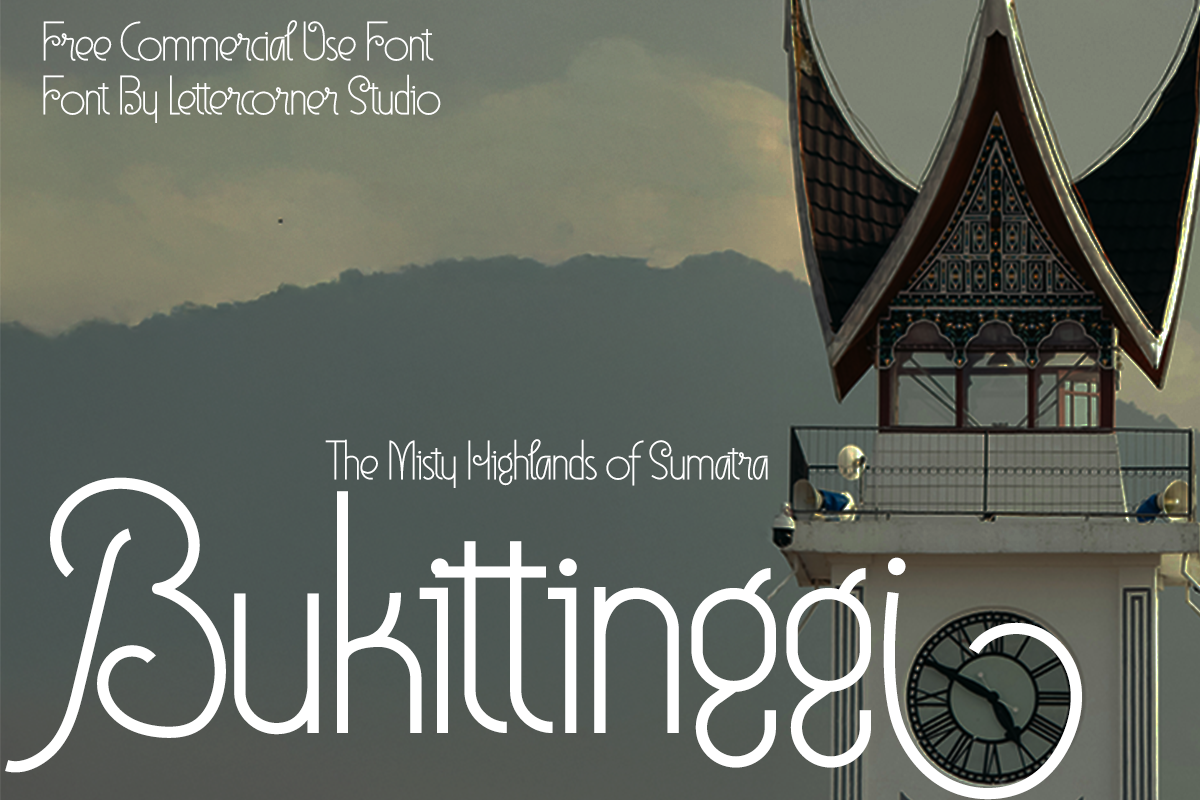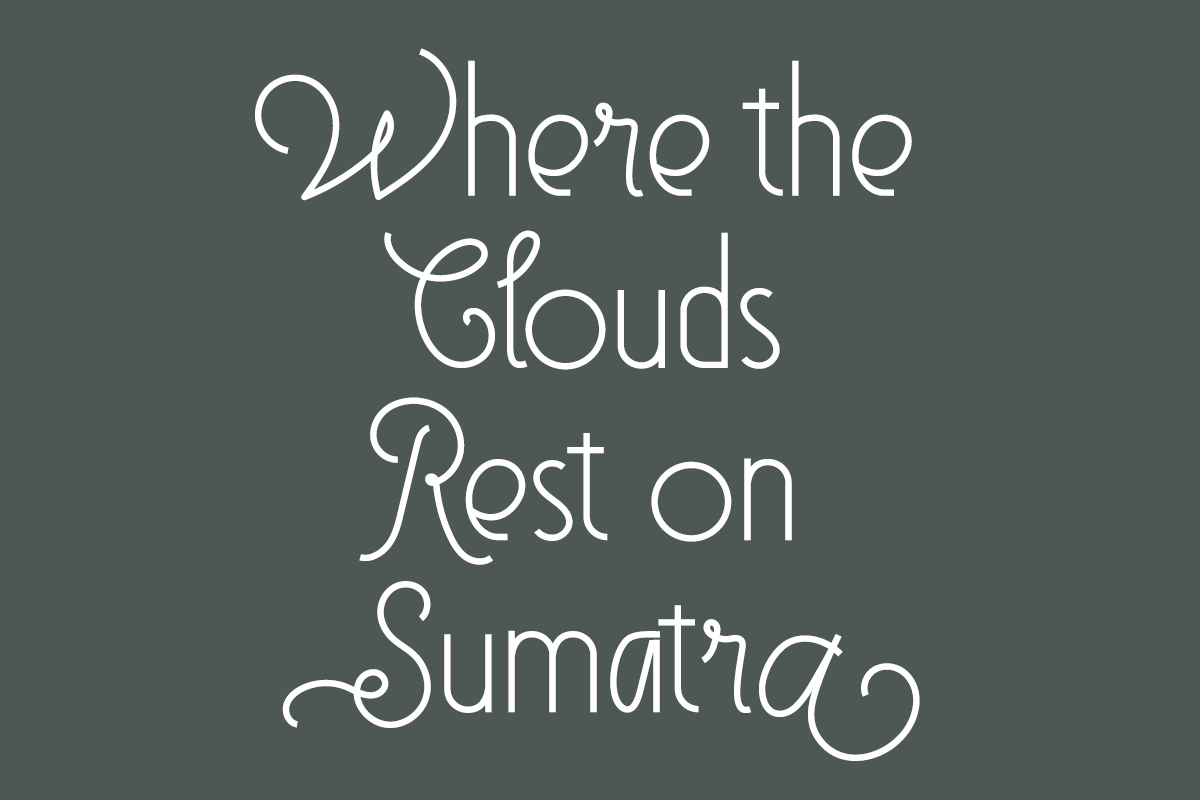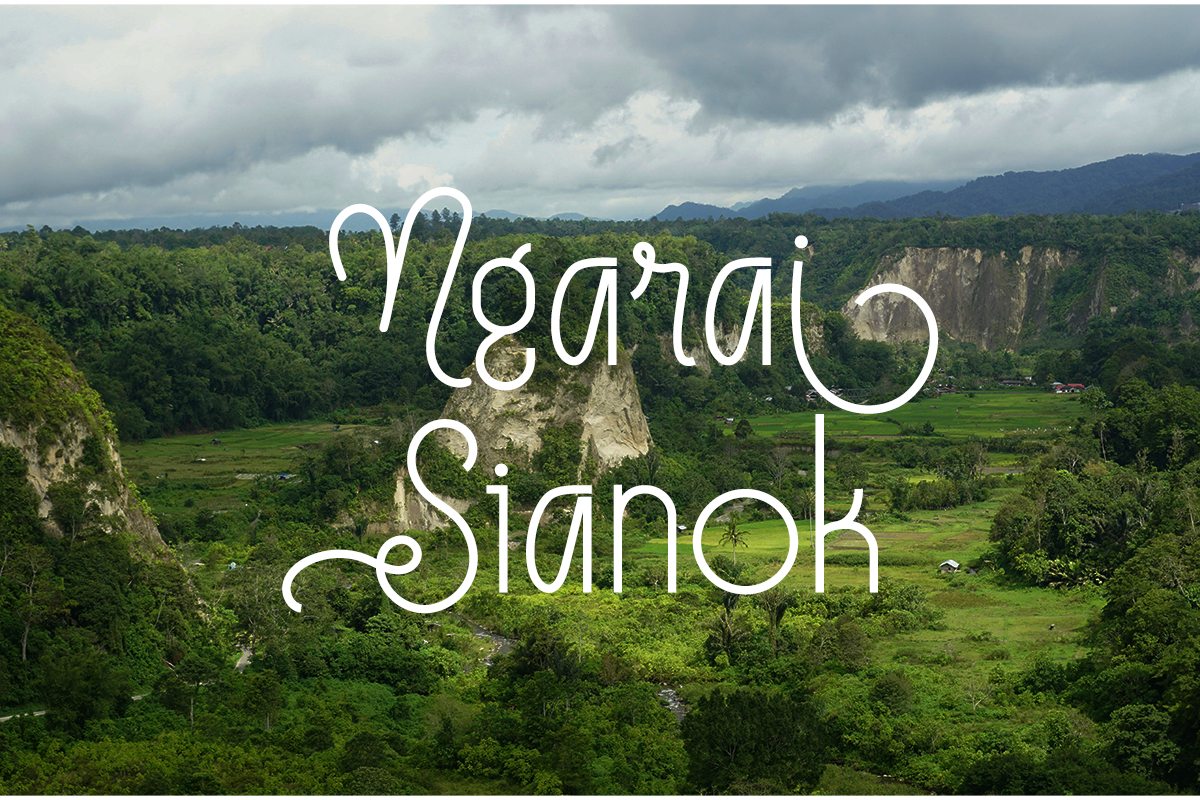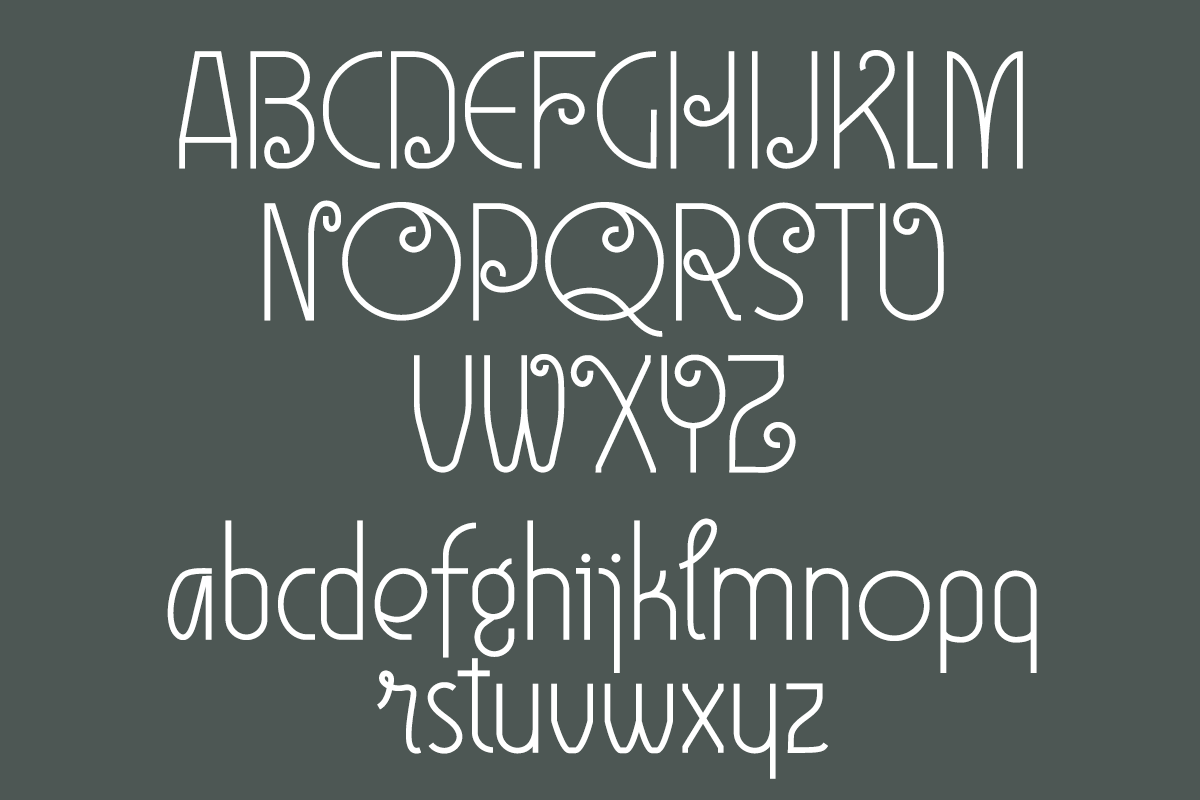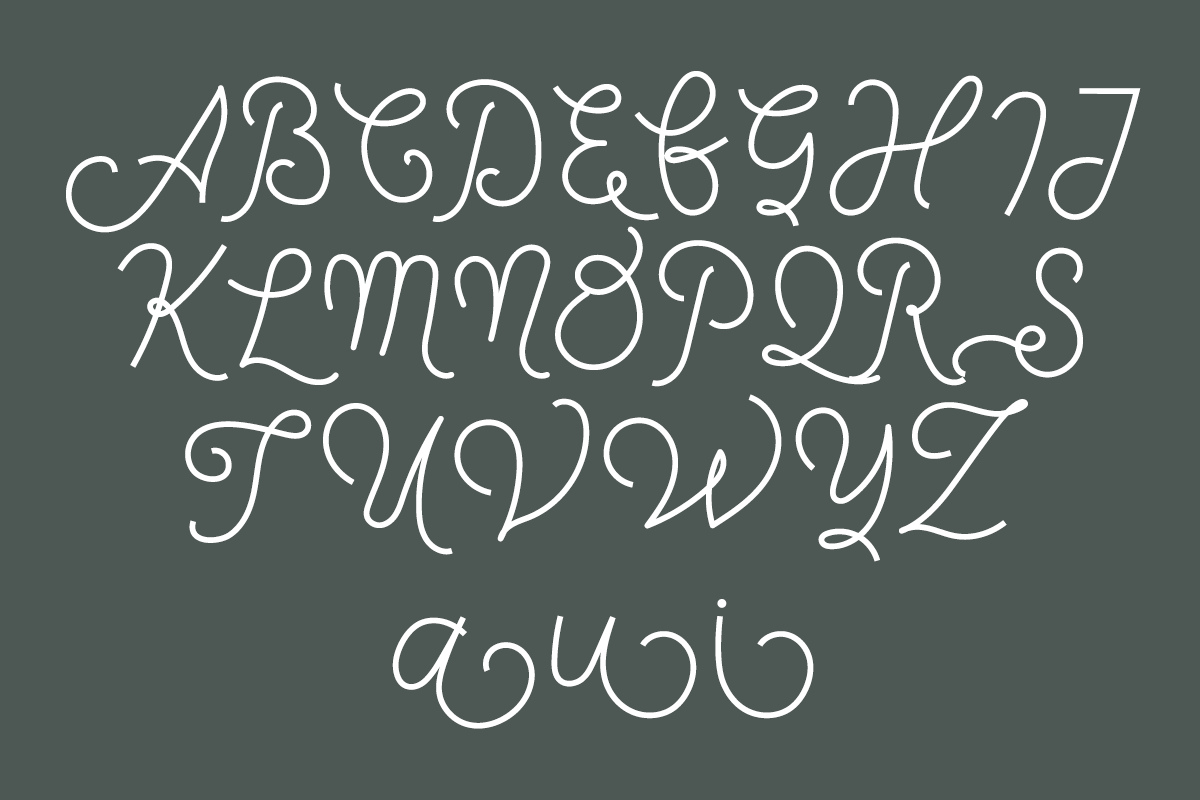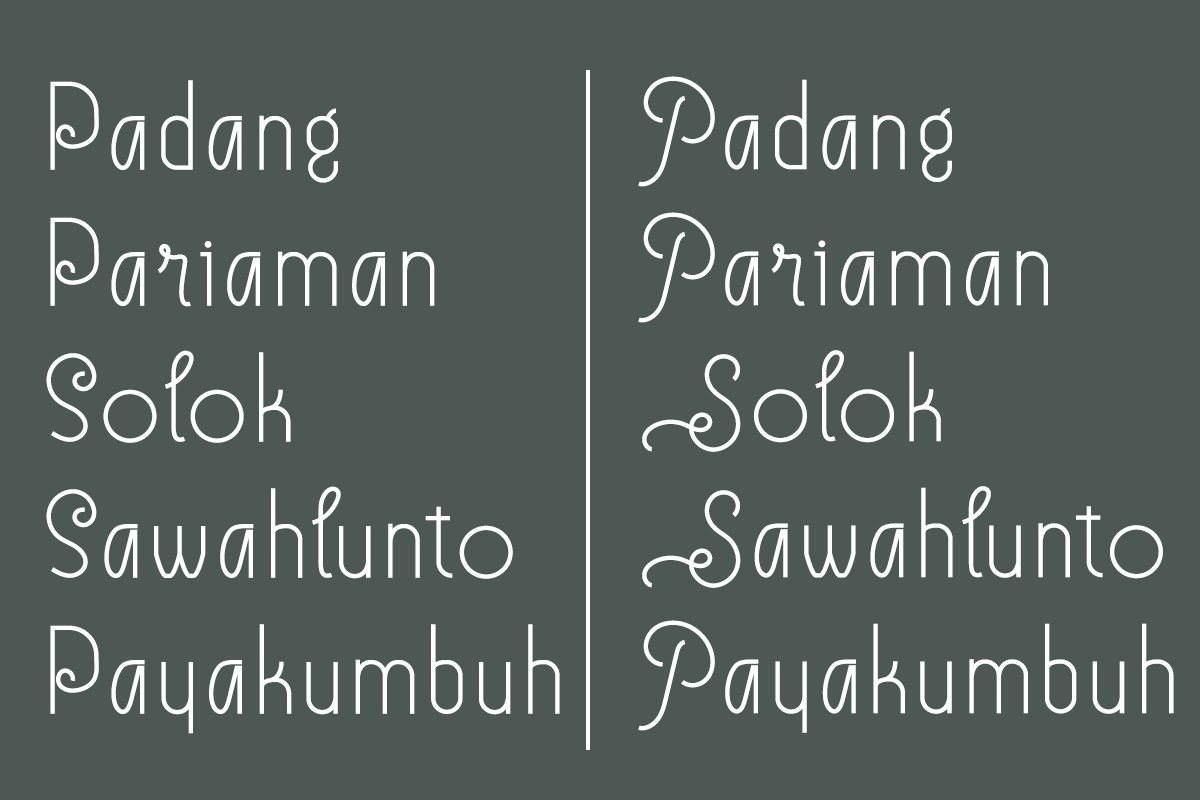
Bukittinggi — Highland-Inspired Script Typeface
There are places where time doesn’t simply pass—it lingers in the mist, settles over the hills, and echoes from a clock tower that has watched over a city for a century. Bukittinggi is inspired by the highland spirit of West Sumatra, where cool mountain air, winding ravines, and Minangkabau heritage continue to shape the rhythm of everyday life.
Designed with flowing, handwritten strokes and delicate looping curves, Bukittinggi captures the quiet elegance of a mountain town while carrying a personal, intimate touch. Its slender forms echo the winding roads that trace the hillsides, giving the typeface a sense of movement that feels both graceful and grounded.
One of its defining details is the dot above the lowercase i, a quiet reference to the face of Jam Gadang, the iconic clock tower that has stood at the heart of the city since 1926. Complementing this inspiration are the gentle loops found in letters like r, g, and l, echoing the contours of the surrounding highlands and the intricate curls of traditional Minangkabau wood carving.
Whether featured on coffee packaging, travel branding, boutique hotel signage, cultural festival posters, artisan product labels, café menus, or heartfelt editorial headlines, Bukittinggi brings the misty warmth of the highlands into every design.